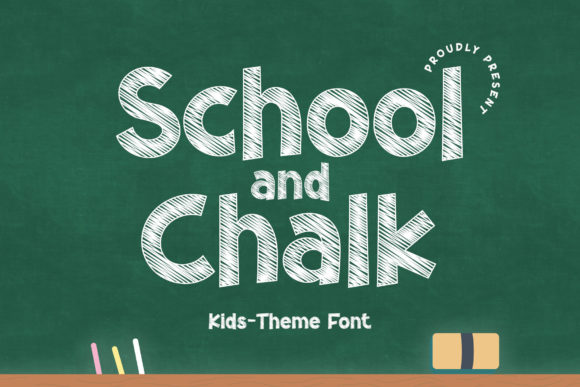
Welcome to the world of School and Chalk, a charming and authentic lettered display font that will add a unique touch to your designs. Created by airotype, this font family is perfect for all chalkboard quotes and teaching materials.
If you are looking for a font that will make your designs stand out, School and Chalk is the perfect choice for you. Its cute and simple design is not only eye-catching, but it also creates a personal and realistic feel that will capture the attention of your audience.
School and Chalk is the perfect choice for teachers, students, and anyone who wants to add a touch of creativity to their work. It's free for personal use, so you can use it for any project you like. Whether you are creating posters, flyers, or social media graphics, this font family will help you to create a unique and engaging design that will grab the attention of your audience.
One of the best things about School and Chalk is its versatility. It can be used for a wide range of projects, from educational materials to branding and advertising. Its simple yet elegant design makes it perfect for all kinds of designs, and it's sure to become a go-to font for all your creative projects.
In conclusion, if you are looking for a cute, simple, and versatile font family that will add a personal and realistic touch to your designs, look no further than School and Chalk. Download it today and start creating stunning designs that will captivate your audience!